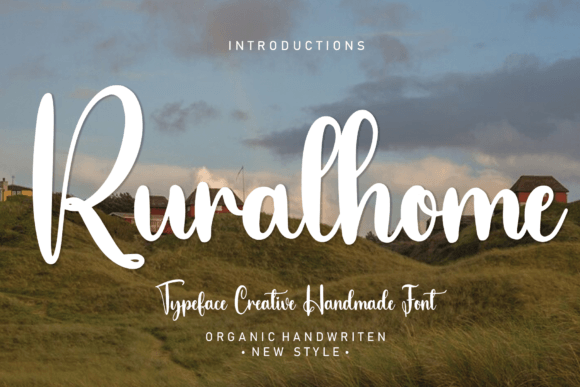
Are you looking for the perfect font to make your wedding logos stand out? Look no further than Ruralhome Font by andikastudio. This script font is the ideal choice for any wedding project, with its modern and neat handwritten style.
With Ruralhome Font, you'll be able to create stunning wedding logos that will leave a lasting impression on your clients. This font is truly one of the best fonts for wedding logos, and it will help you elevate your design to the next level.
But don't just take our word for it. Try Ruralhome Font for yourself and see the difference it can make in your designs. This font is versatile and can be used for a wide range of projects beyond just weddings. From invitations to branding materials, Ruralhome Font is a must-have in any designer's toolkit.